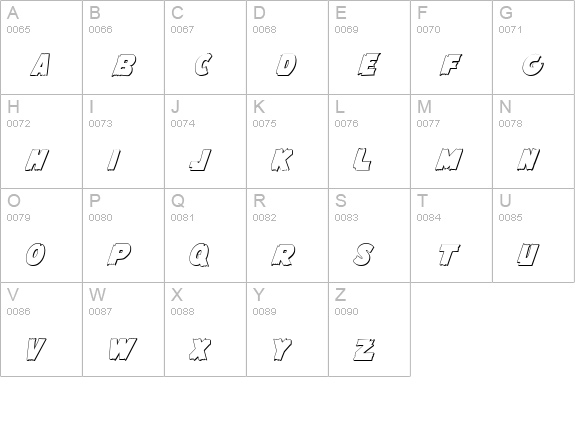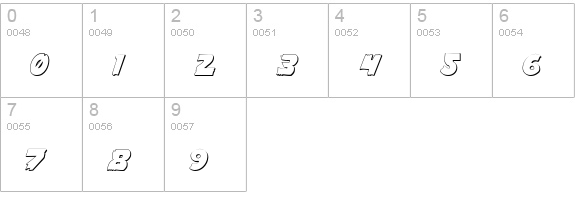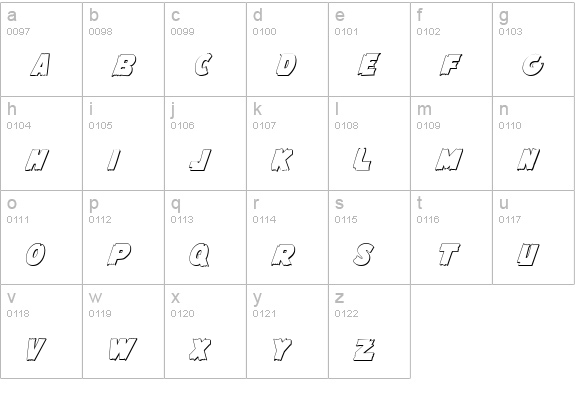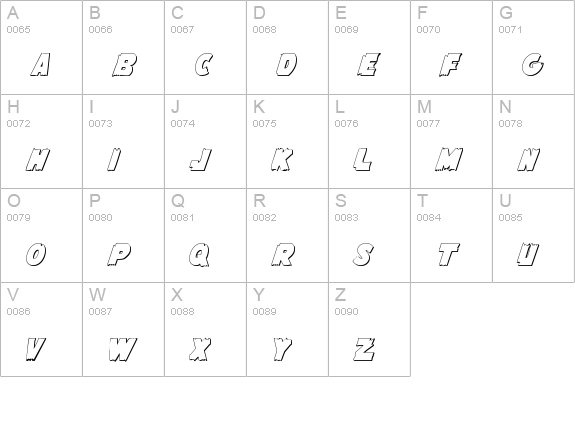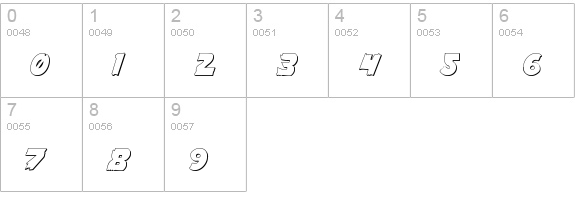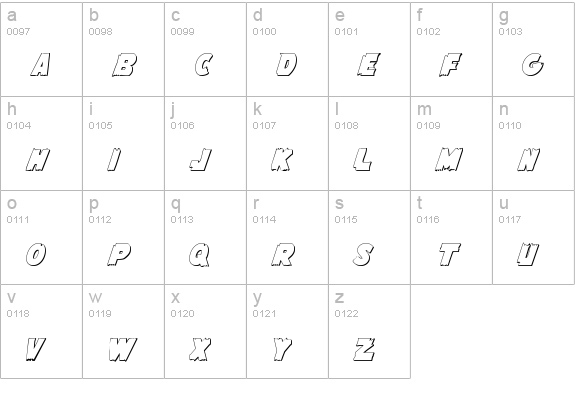
Flying Leatherneck Outline font is a bold and dynamic display typeface that exudes strength and modernity. With its sleek lines and sharp edges, this font is perfect for creating eye-catching headlines, logos, and branding materials. The outline design adds a unique touch to any project, making it stand out from the crowd. Best of all, Flying Leatherneck Outline font is completely free to download at FontsMarket.com. Whether you are a designer looking to add a fresh element to your work or a business owner in need of a striking visual identity, this font is a fantastic choice. Don't miss out on the opportunity to elevate your designs with this versatile and stylish typeface. Download Flying Leatherneck Outline font today and let your creativity take flight!